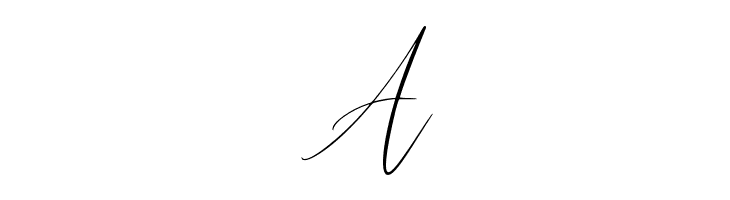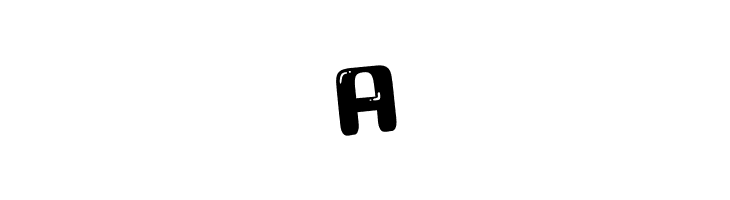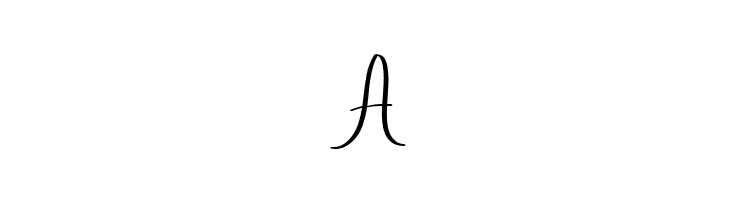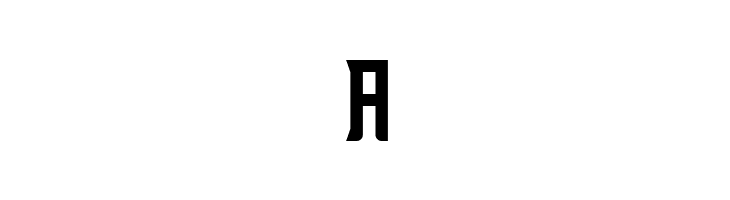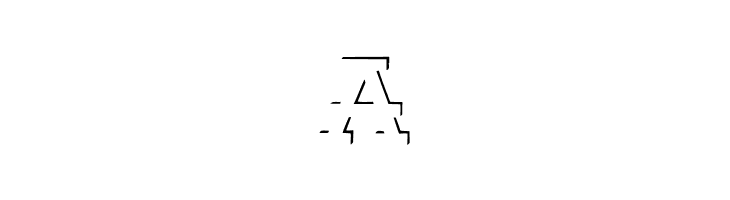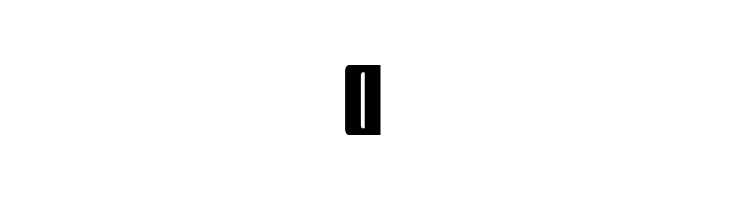
A modern stencil font with geometric cutouts and bold, structured uppercase letters.
A bold, three-dimensional font with a carved-out effect.
A playful, connect-the-dots style font with uniform stroke width and rounded edges.
A bold, flowing script font with elegant curves and a modern edge.
A bold, expressive script font with flowing, connected letterforms.
A pixelated, retro-style font with a digital, geometric design.
A bold, high-contrast font with angular serifs and a condensed structure.
A bold, expressive script font with fluid, interconnected strokes.
A bold, geometric font with sharp angles and a futuristic look.
A graceful and elegant script font with a handwritten style.
An elegant, flowing cursive font with thin, graceful strokes.
A bold, italicized font with dynamic angles and futuristic cut-out elements.
A bold, geometric font with a modern and futuristic design.
A bold, geometric font with a modern and industrial style.
A vintage typewriter-style font with rugged, irregular letterforms.
A lively and dynamic script font with flowing, interconnected letterforms.
A bold, handwritten font with dynamic and flowing strokes.
A bold, geometric font with parallel lines creating a modern, dimensional look.
A modern, geometric font with concentric line patterns for a bold visual impact.
A bold, 3D font with a playful and modern style, featuring rounded characters and a shadow effect.
A bold, playful font with a hand-drawn, vintage feel.
A graceful script font with fluid, handwritten-style characters.